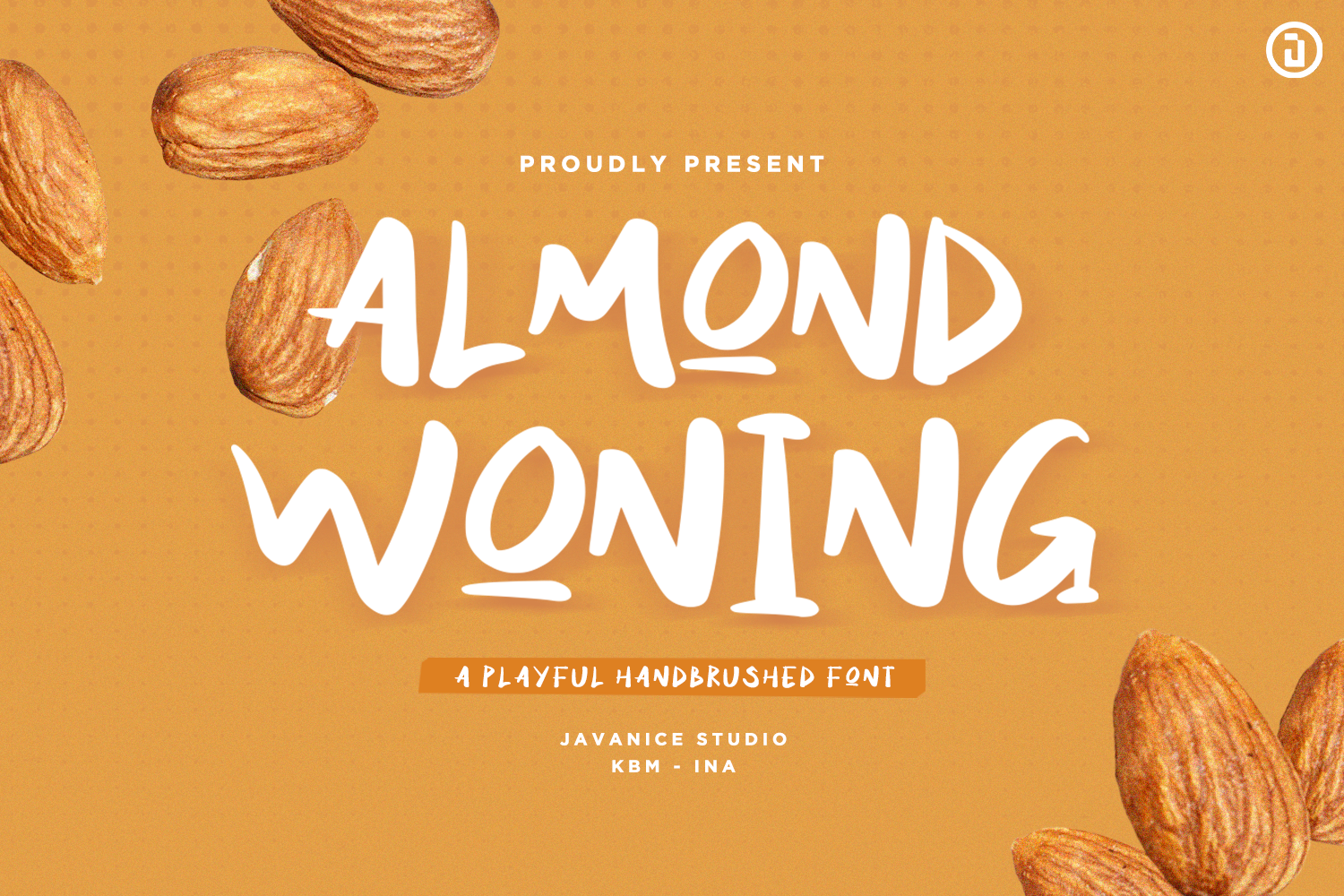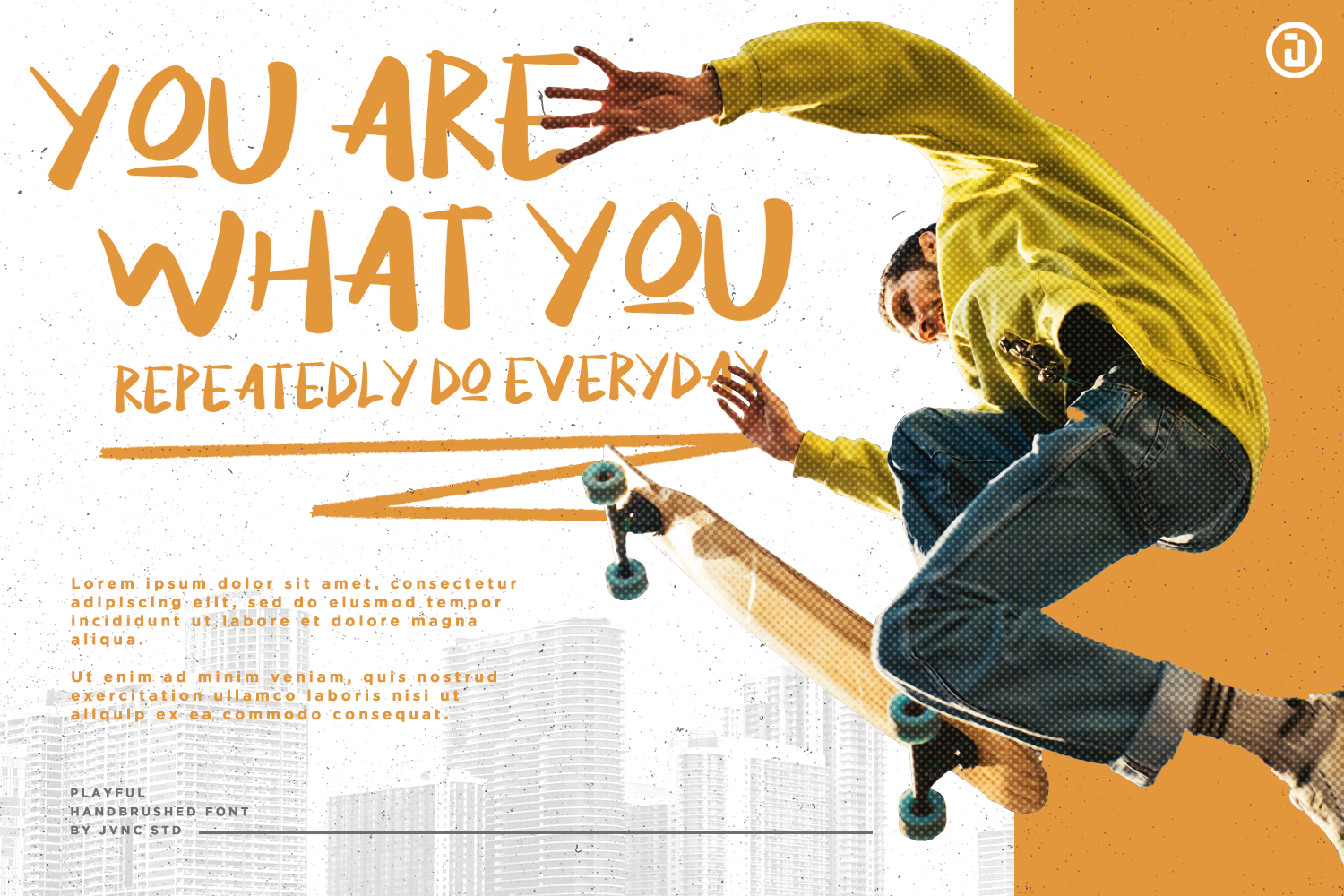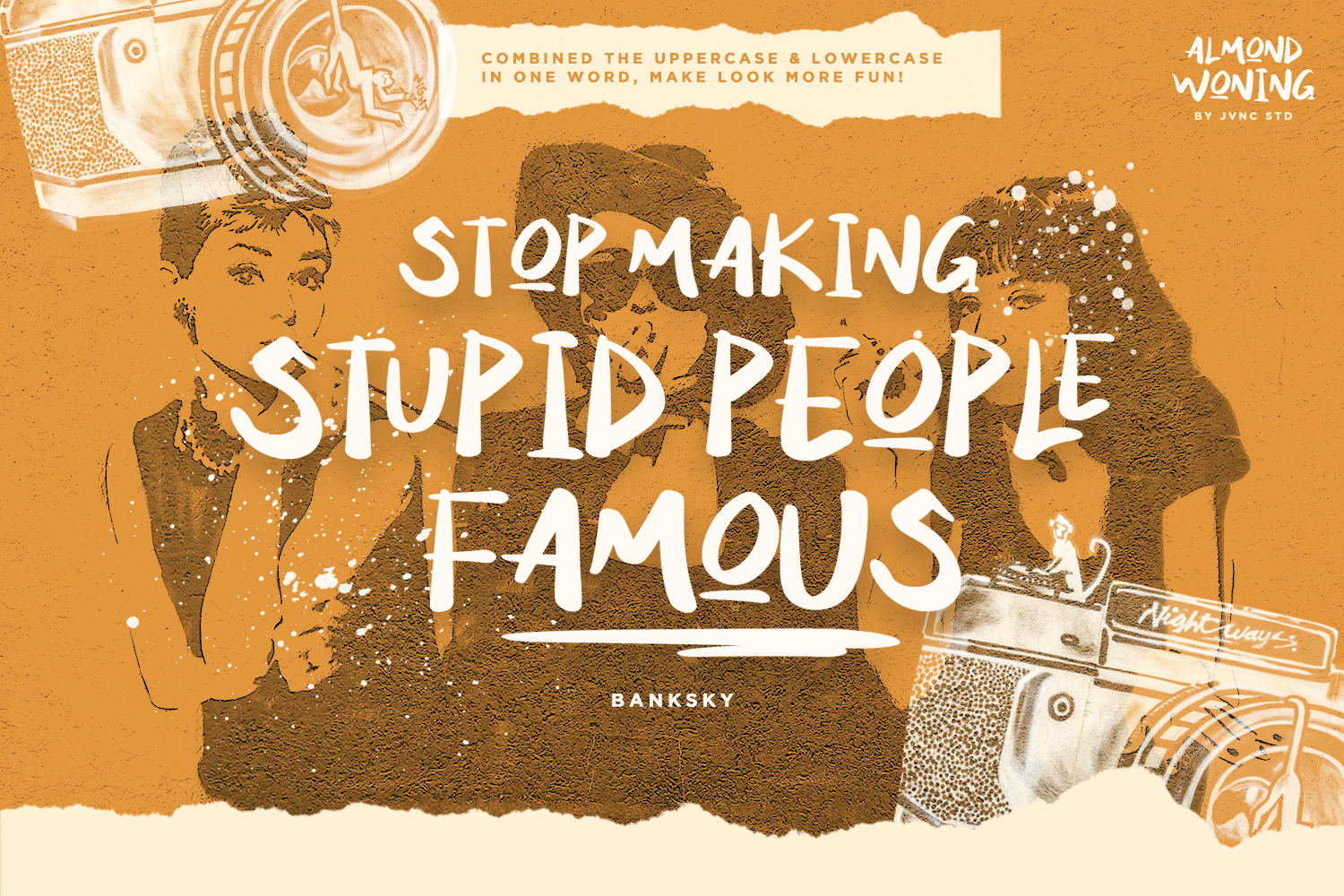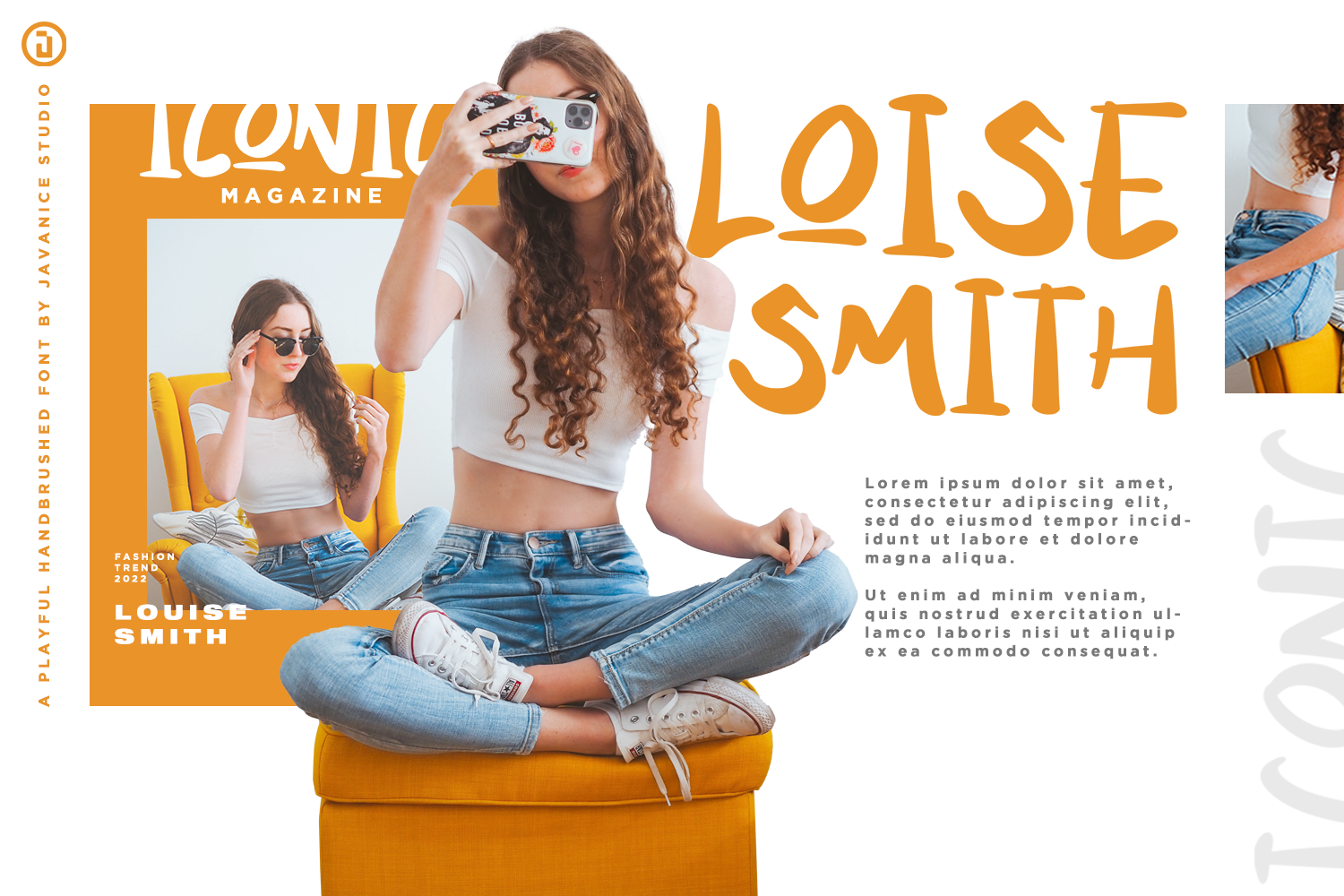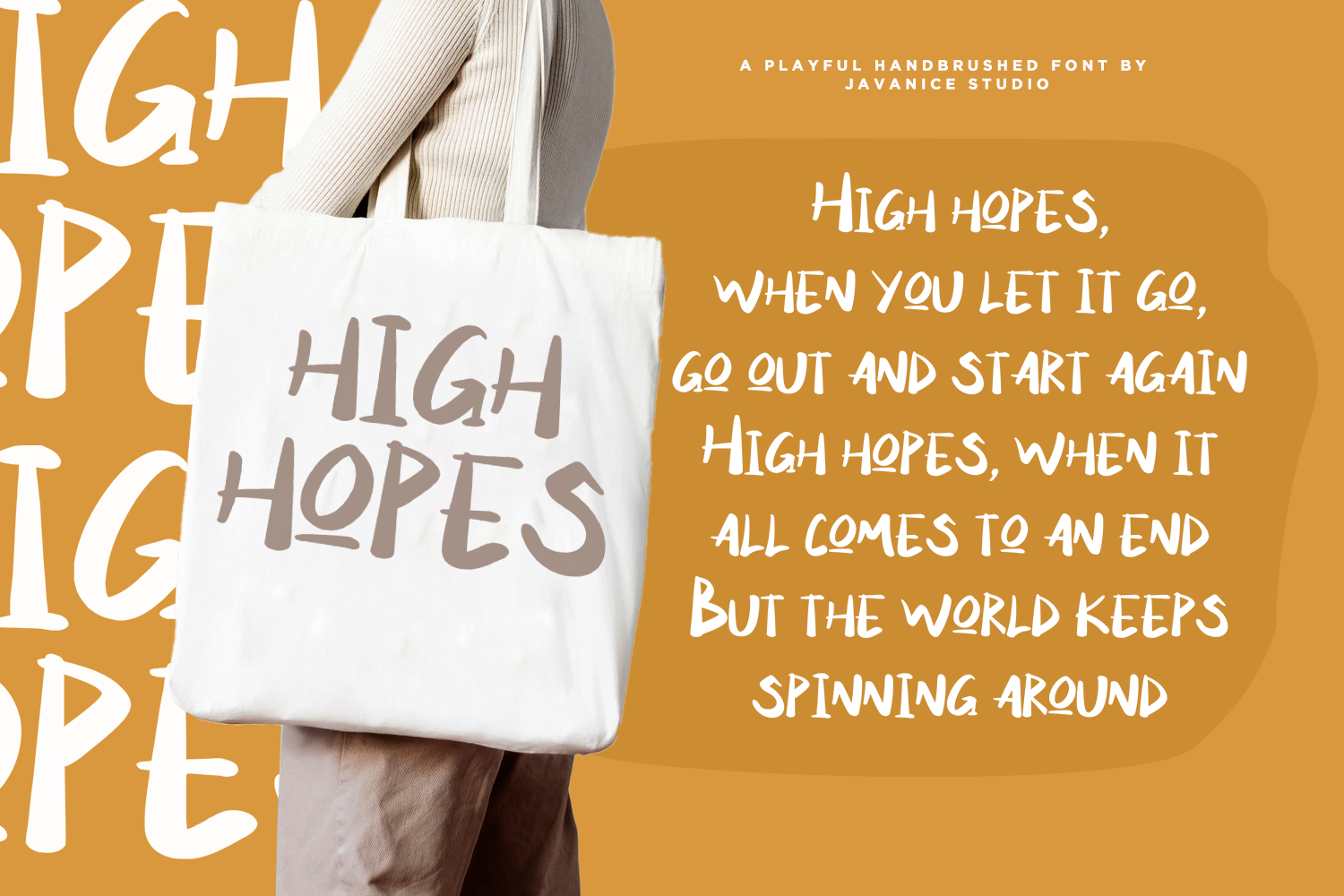
Almond Woning Free Font
Discover the allure of Almond Woning Free Font a sophisticated display font designed to captivate. With its stylish charm, this font is an ideal choice for an array of creative endeavors, including branding projects, apparel designs, labels, magazines, books, greeting and wedding cards, packaging, fashion-related ventures, makeup lines, stationery, and various advertising purposes. It effortlessly complements any project, allowing you to express your message with grace and distinction against any background. Unleash the power of Almond Woning to elevate your designs to new heights. This free typeface was designed by a talented Javanice Studio. If you like it don’t forget to check out the full version.